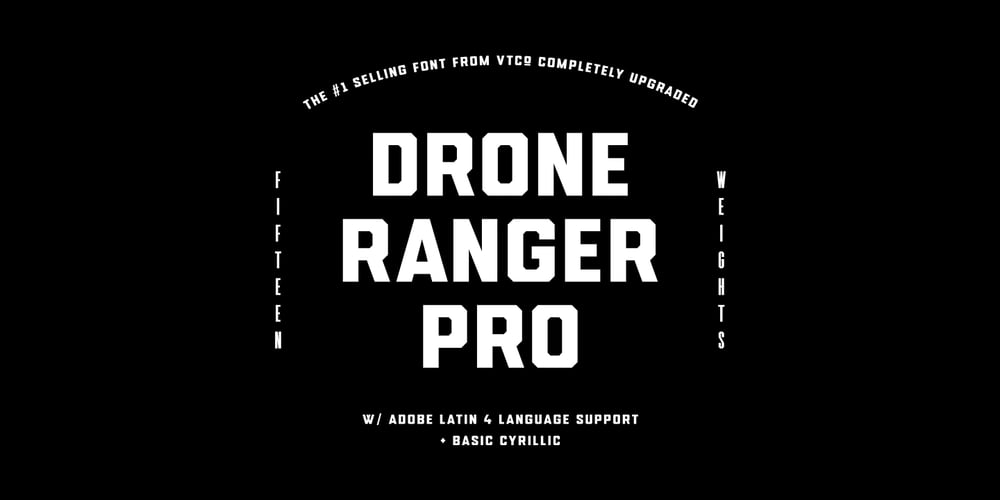
Drone Ranger Pro
Drone Ranger Pro font
Drone Ranger Pro Font Family was designed by Sean Coady and published by Vintage Type Company. Drone Ranger Pro contains 15 styles and family package options. The original, highly acclaimed, Drone Ranger Display Font has been completely re-drawn, re-vamped, and upgraded with a ton of extra features. Drone Ranger PRO is a bold, chiseled display family inspired by dystopian, retro propaganda. The font is very industrial in its aesthetic, and is built on strict, rigid geometry. Features include a full uppercase alphabet with alternate glyphs, varying stroke weights for better legibility, improved glyphs & numerals, fractions, and a full set of Adobe Latin 4 diacritics + basic cyrillic.